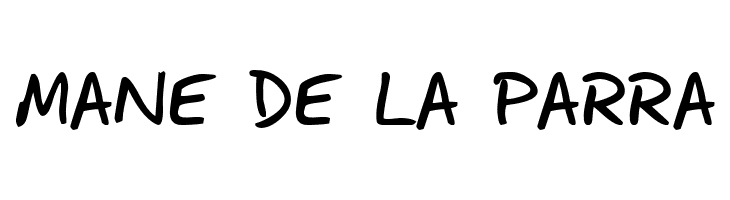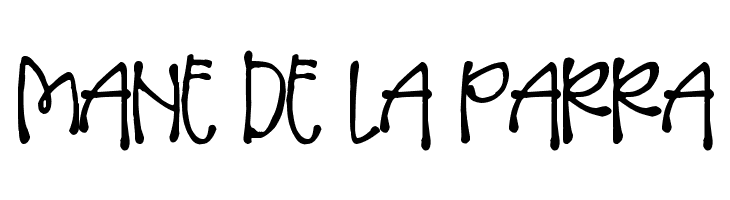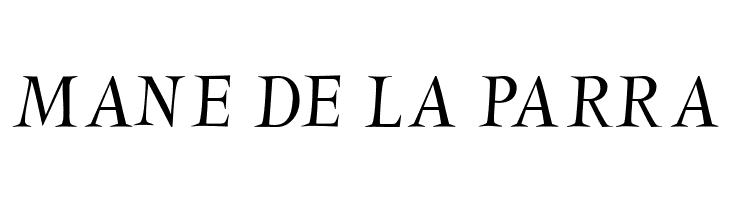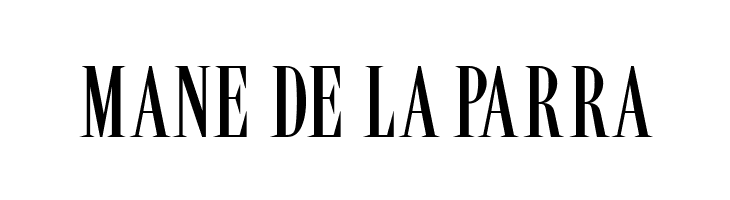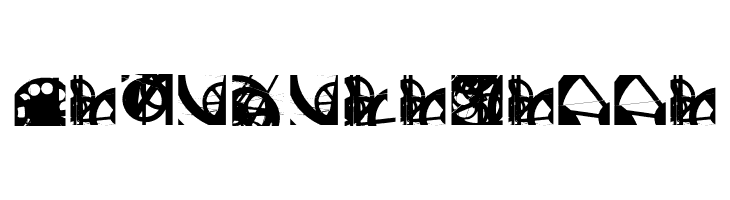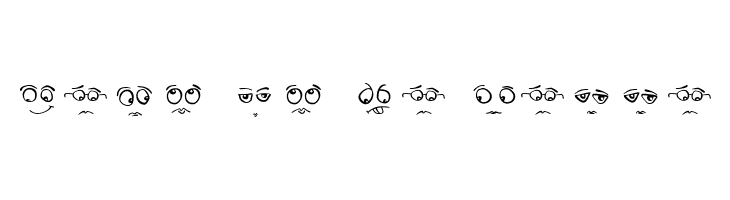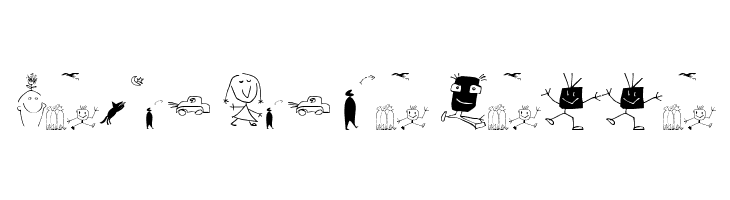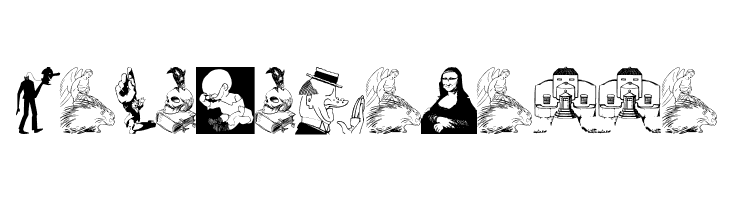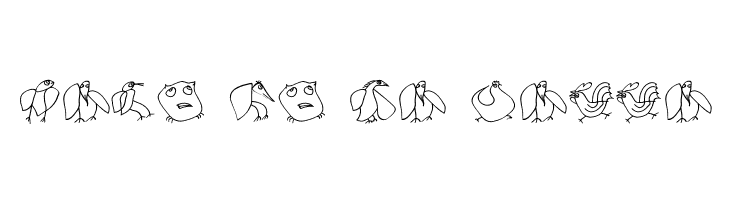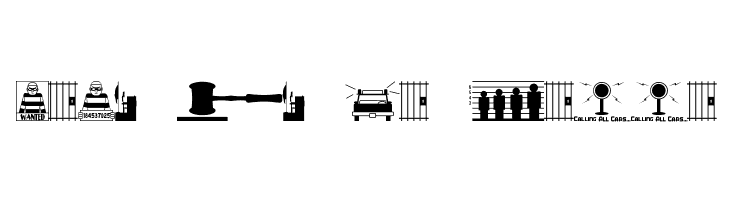
• Larger Mime
A playful, artistic handwritten font with bold, expressive strokes.
• Larson
A playful, bubbly font with rounded edges and quirky cutouts.
• LArtPourLArtOne
A highly decorative and abstract font with intricate geometric patterns.
• Lasihiekka
A bold, outlined font with a playful, hand-drawn style.
• Last Shade_Persona_Use_Only
A bold, textured script font with a distressed, vintage look.
• Last Words Thin
• LastWit
Cartoon illustration font with each character as a unique drawing.
• LateBirds
A decorative font with whimsical bird illustrations replacing standard characters.
• LateBirdsFS
A playful font featuring unique hand-drawn bird illustrations.
• LateBirdsThree
A playful decorative font with unique bird illustrations for each character.
• LatinCondensed-SemiBold
A classic serif font with a condensed, semi-bold style, ideal for elegant and readable text.
• Latine
A classic serif font with elegant strokes and moderate contrast.
• LatinRCond
A bold, condensed serif font with high contrast and elegant curves.
• LatinSmall
A classic serif font with high contrast and elegant, narrow characters.
• LatinumTallX
A classic serif font with elegant, elongated letterforms and high contrast.
• LaTortue
A bold, 3D block font with shadow effects, perfect for vintage-inspired designs.
• LATRUITEAPAPA
A bold, decorative font with a vintage and slightly distressed style.
• LATRUITEAPAPA B
A bold, high-contrast font with vintage flair and elegant serifs.
• Latso Free Personal Used
A playful, bold handwritten font with rounded, casual letterforms.